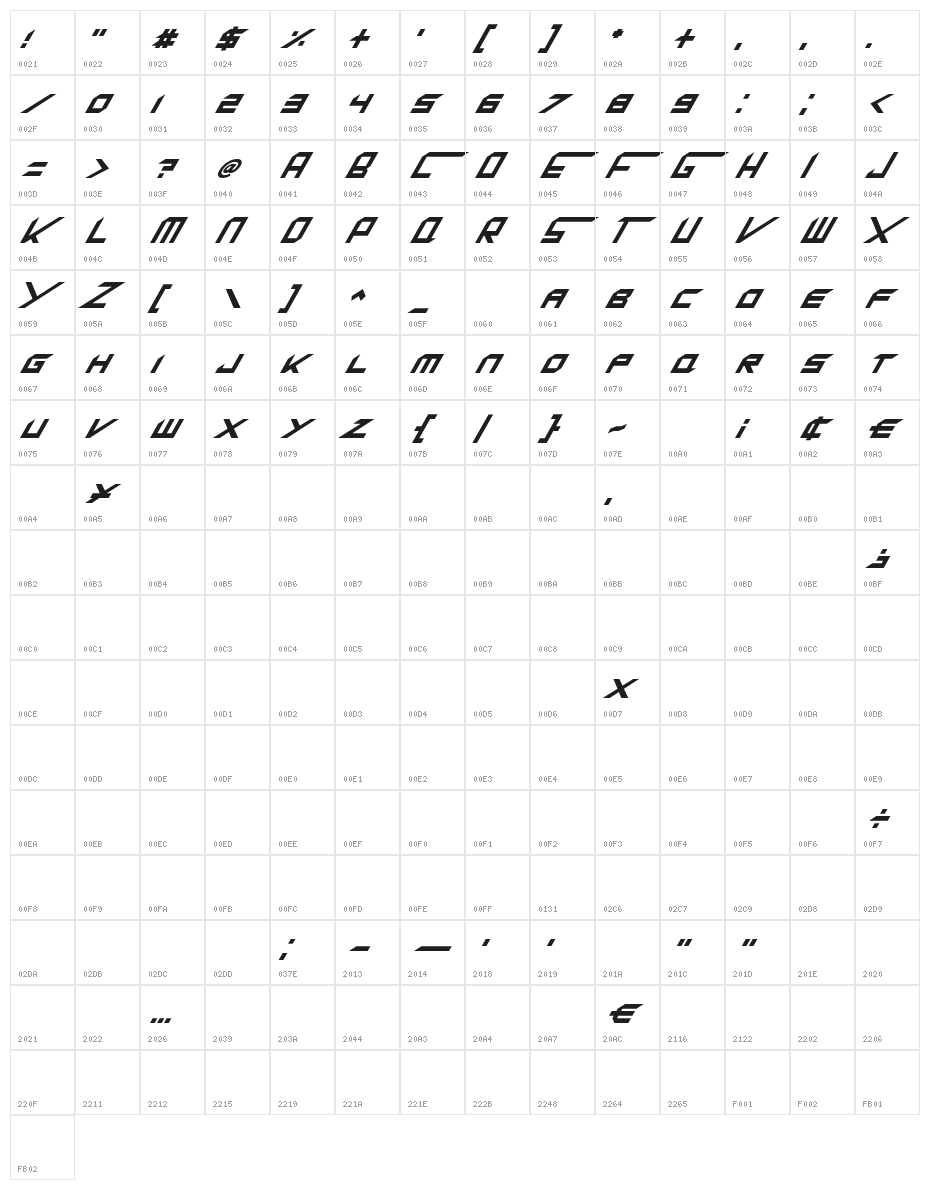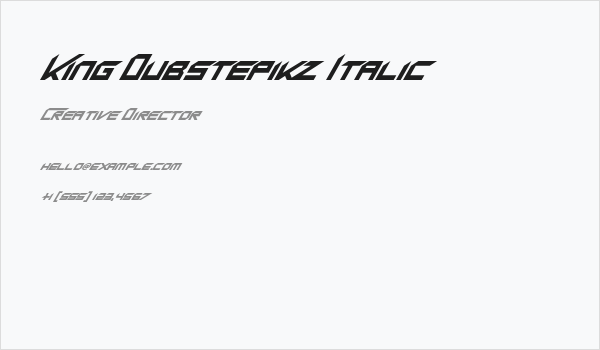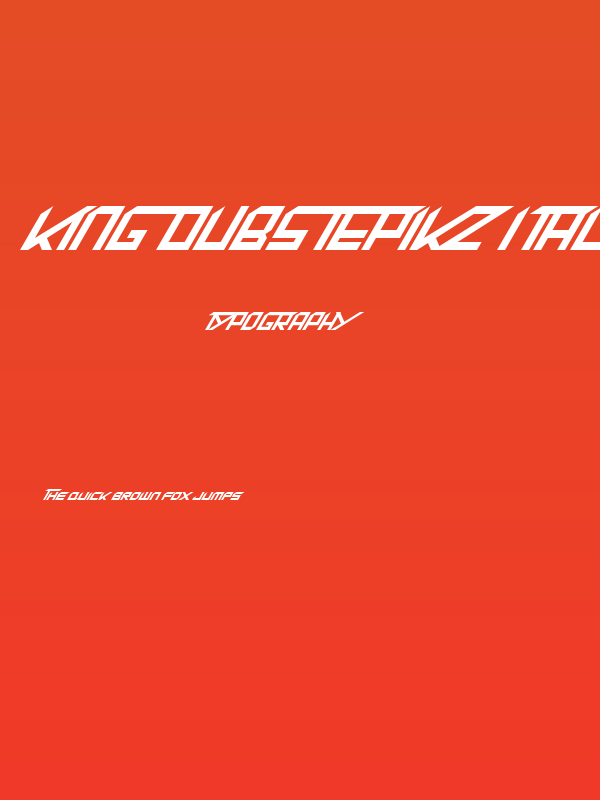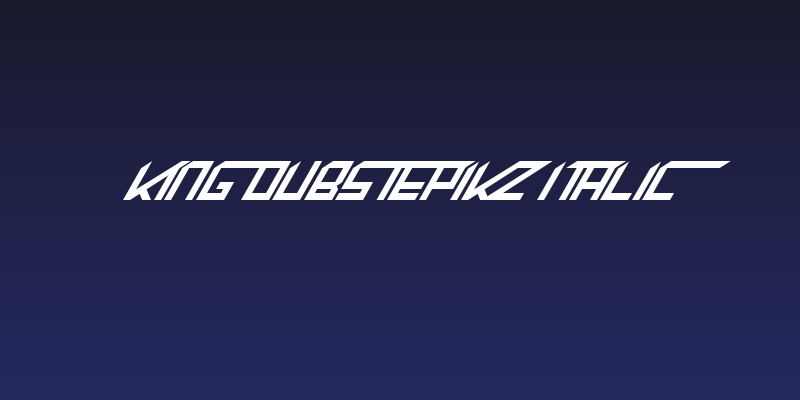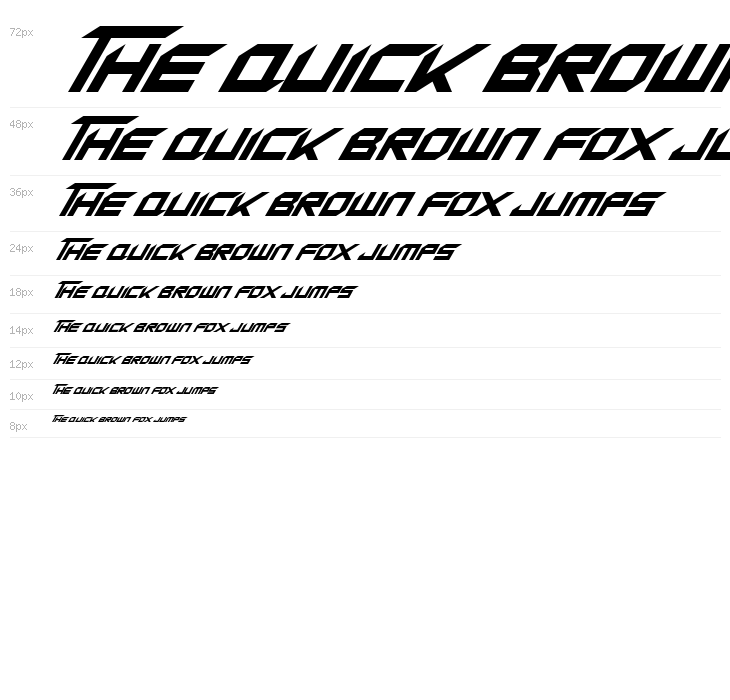
King Dubstepikz Italic Font
King Dubstepikz Italic Description
This font features a bold, angular design with a futuristic and dynamic appearance. The characters are sharply cut with a forward-leaning italic style, giving a sense of motion and speed. The uppercase and lowercase letters maintain a consistent geometric structure, while the numbers and special characters are designed to match the overall aesthetic. The font's sharp edges and slanted orientation make it ideal for projects that require a modern and edgy look. It is particularly suitable for digital media, gaming, and technology-related designs.
| Proposed Projects | Ideal for digital media, gaming titles, technology branding, and futuristic-themed posters. |